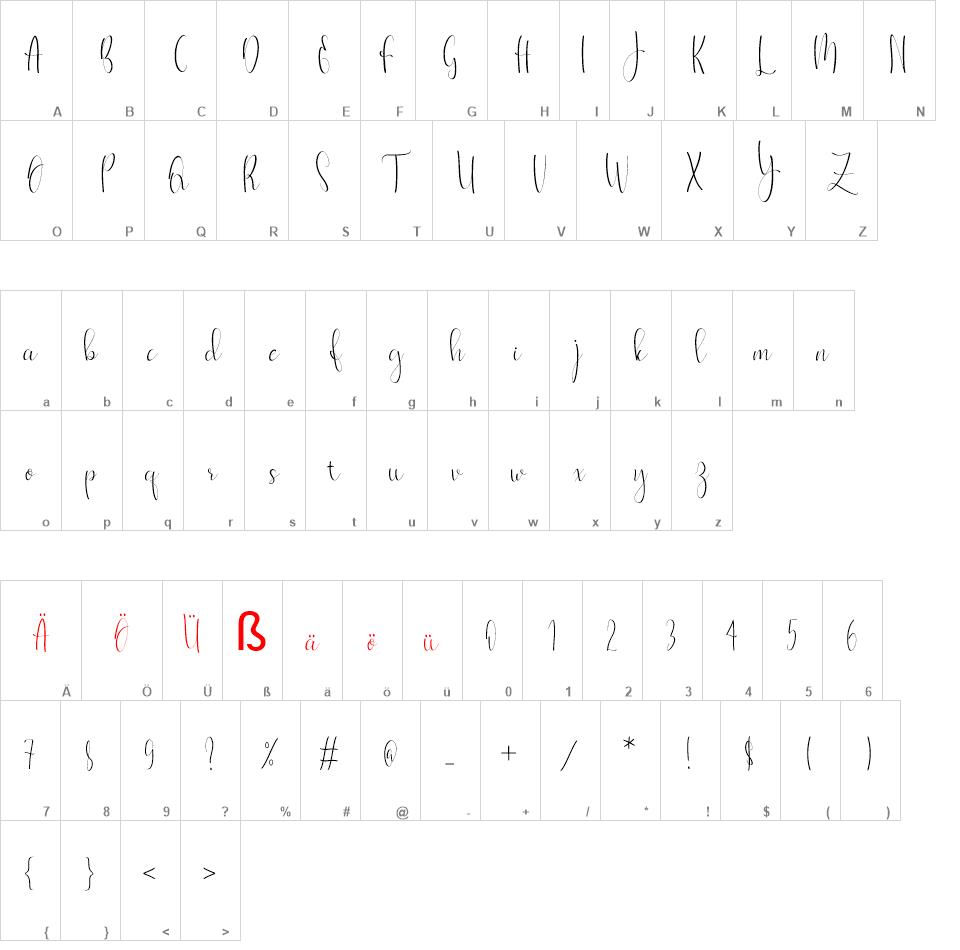
Yesterday font
Hello.. Introduce Yesterday font goes with Modern and Creative Calligraphy, ready to give your design project with fresh style. There also available ornament swashes to get fresh look.Suitable for various purpose such as digital lettering, headings, logos, wedding invitation, t-shirt, letterhead, signage, lable, news, posters, badges, branding materials, print, business cards, quotes, logo, poster, and suitable for any graphic design project.Font Features :
Standard Uppercase & Lowercase
International Languange Support
Access All Alternate
Punctuation & Number
PUA Unicode Range
Standard Ligatures
Swashes